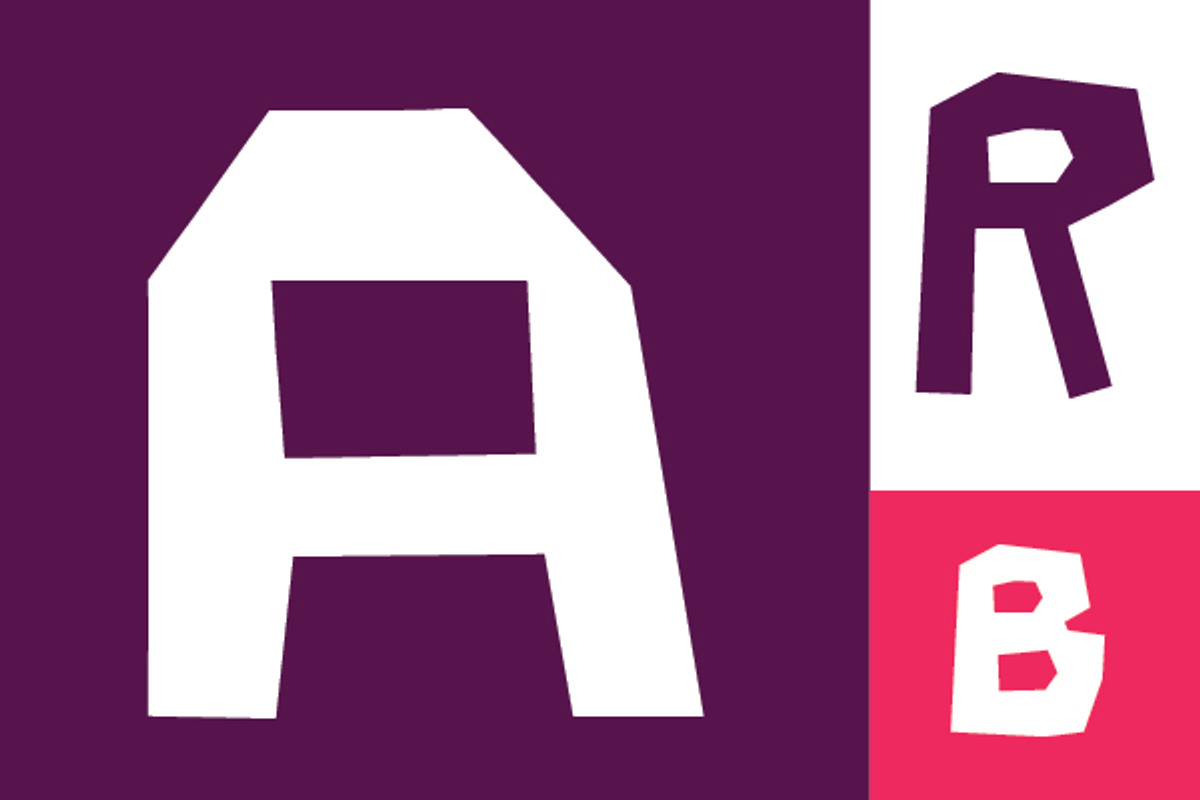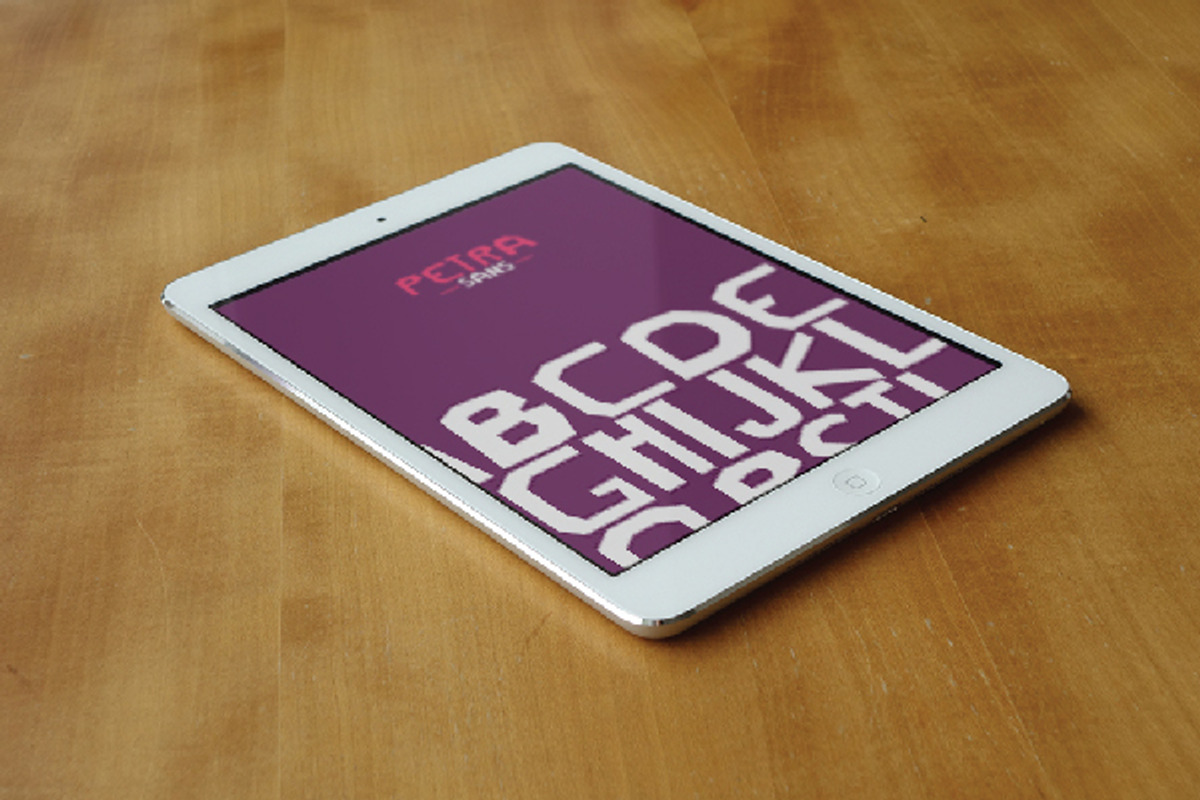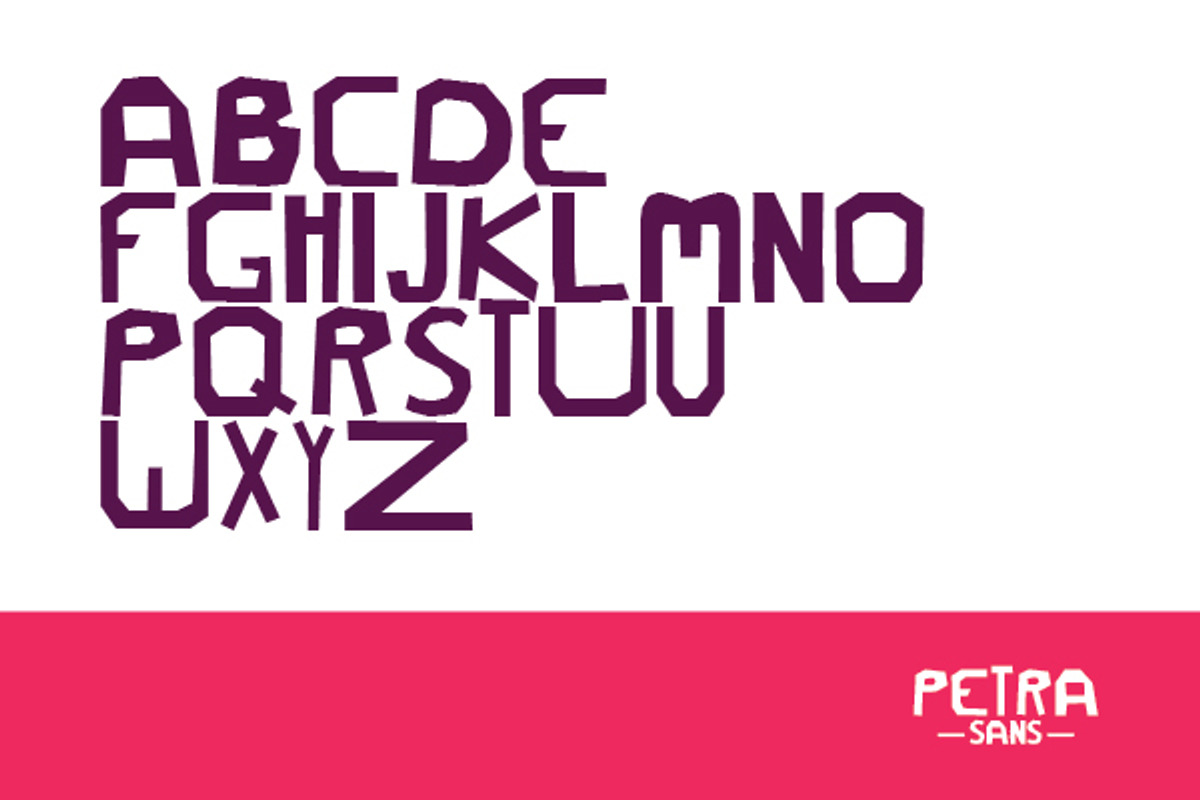
Petra Sans Type (font)
Petra Sans Type (font) by SUBCUTANEO STORE is a font selected for branding, posters, packaging, typography.
Petra Sans Type (font) by SUBCUTANEO STORE fits naturally into Branding, posters, packaging, typography.